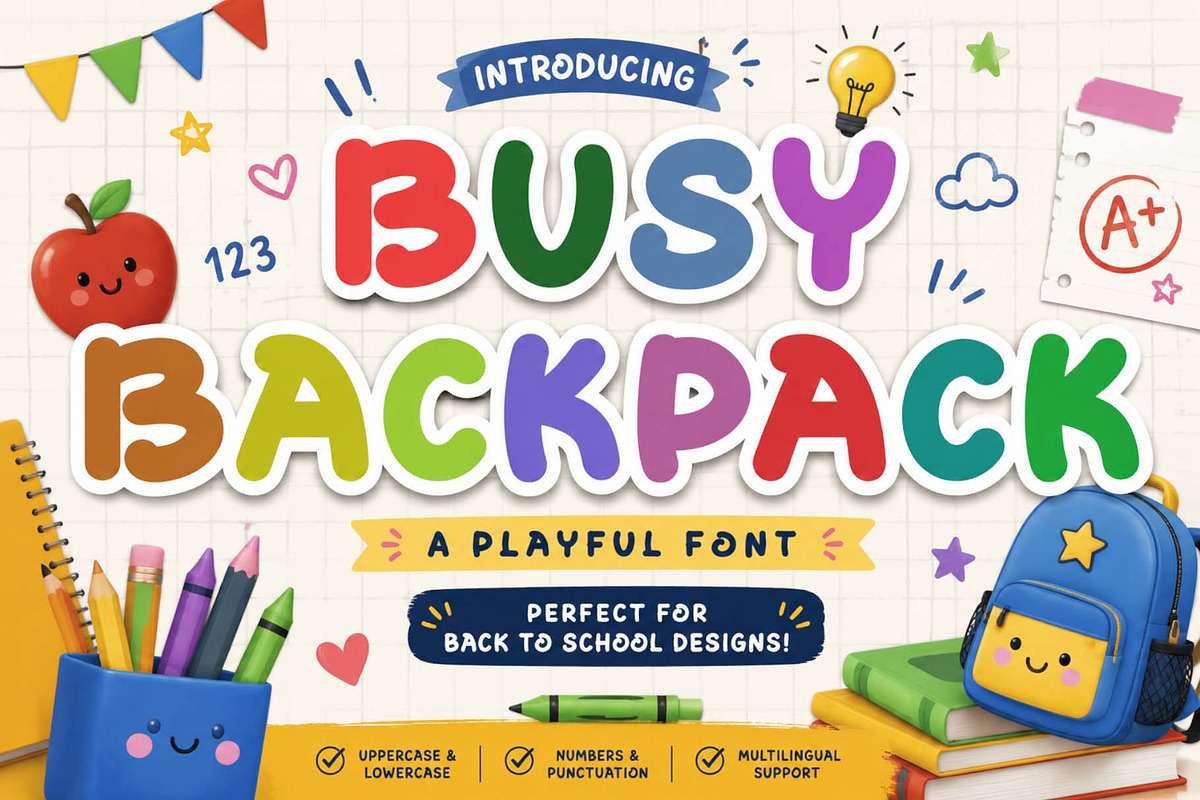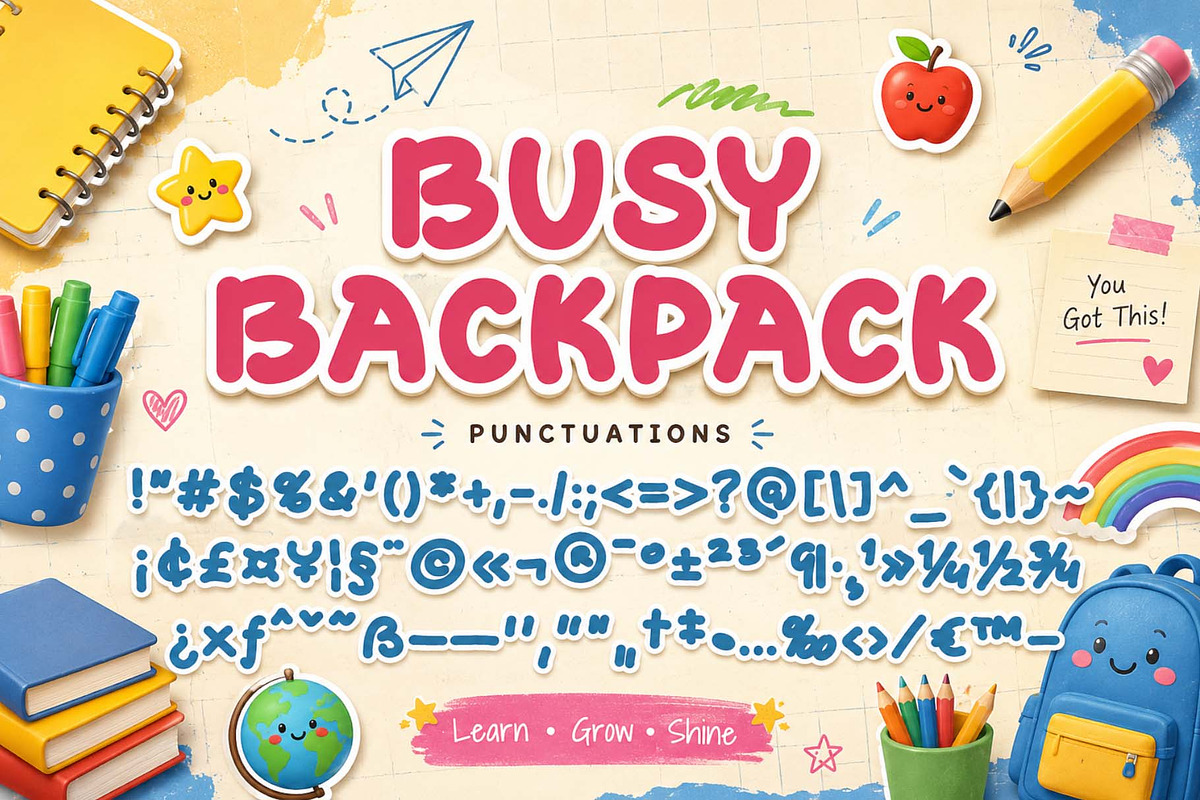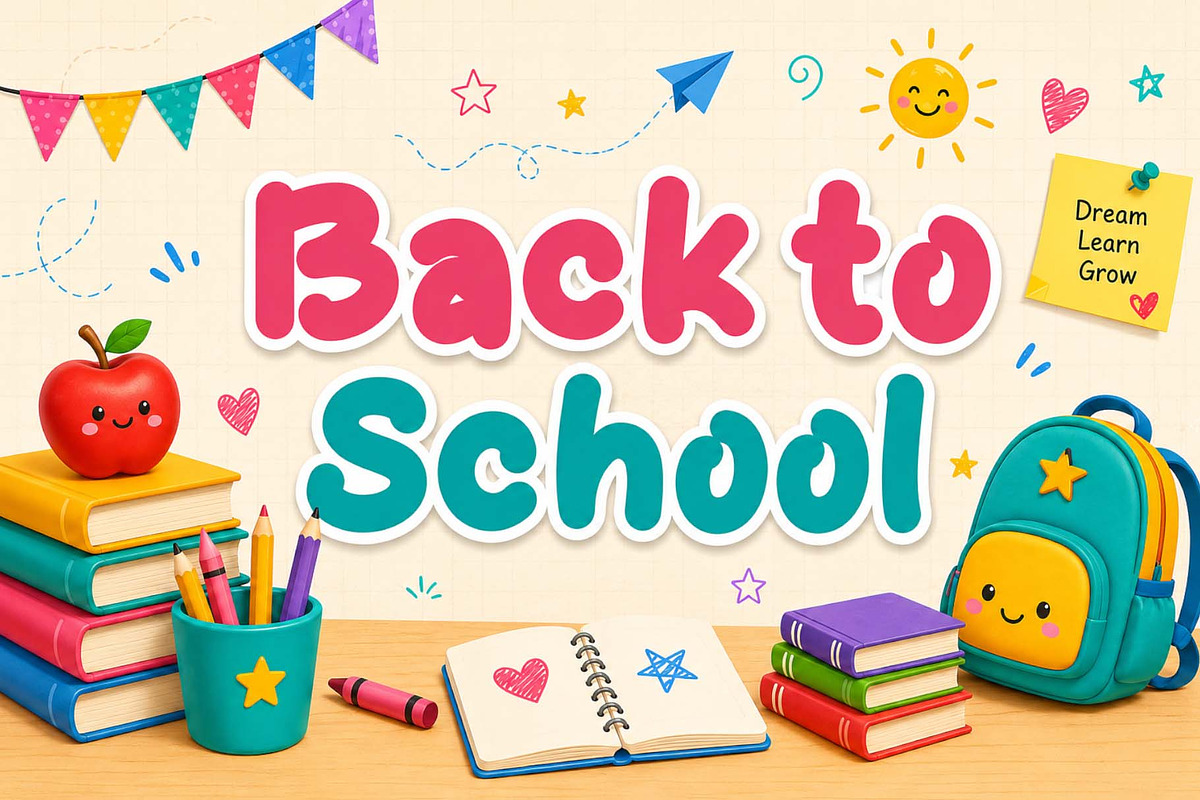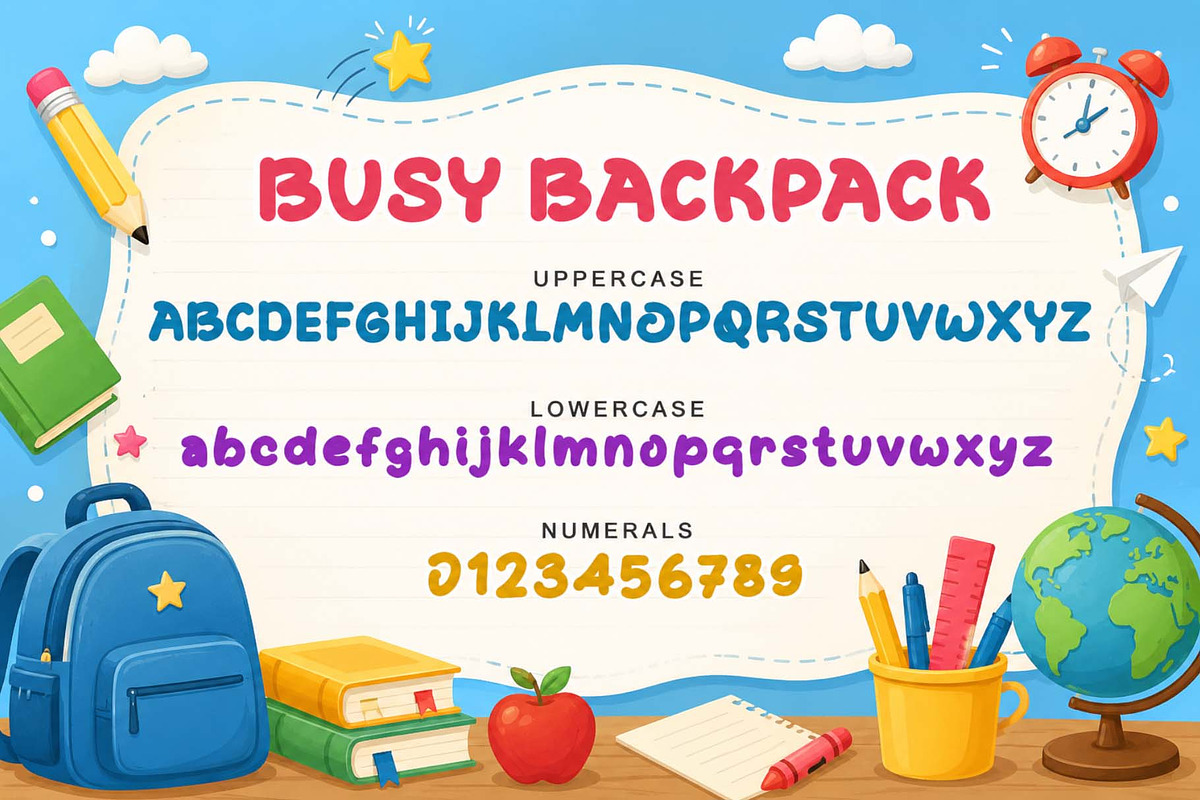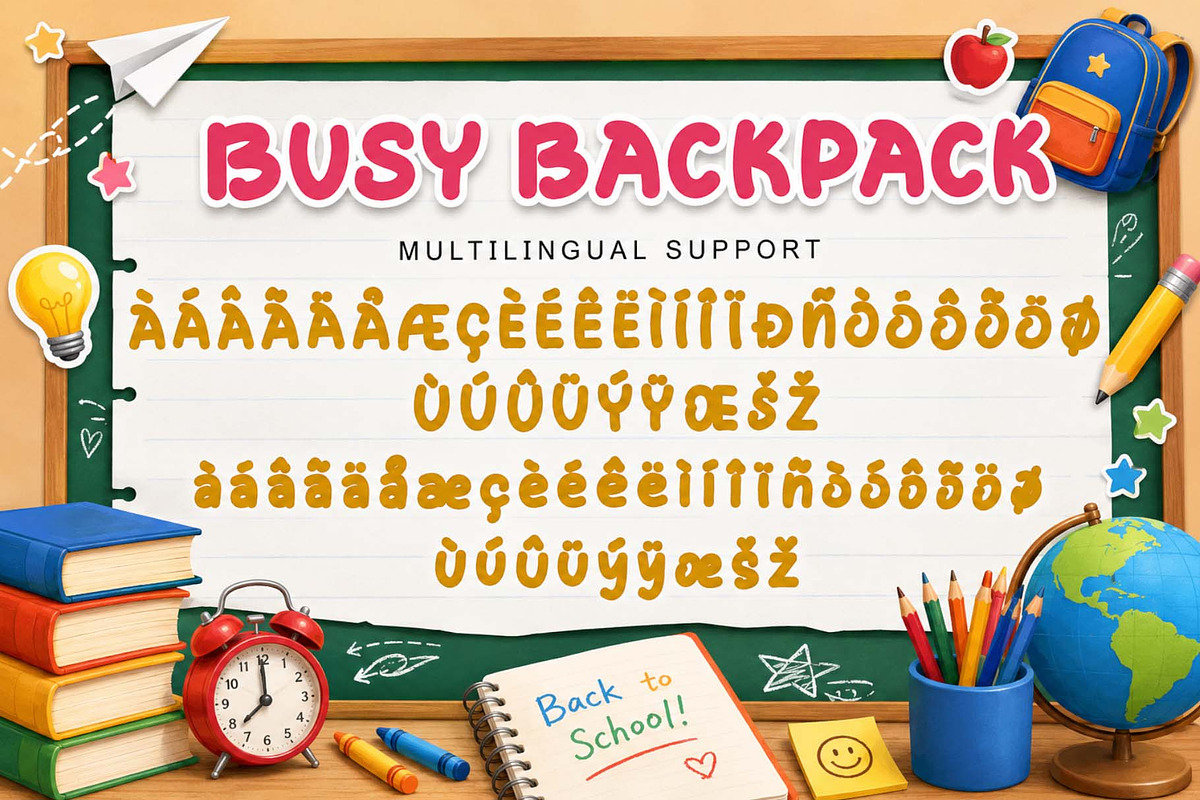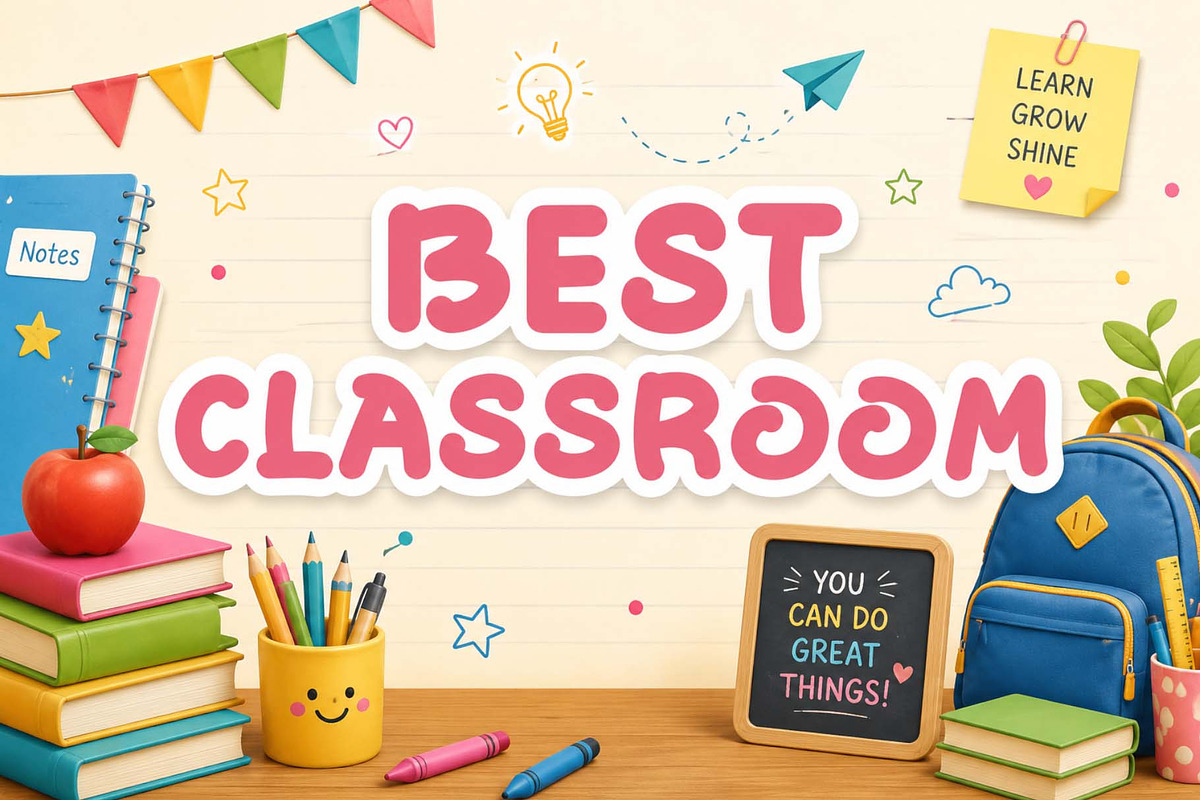
Busy Backpack
Busy Backpack is a cheerful and playful display font designed to bring fun and creativity to any project. Its bold, rounded letters are perfect for back-to-school themes, classroom decor, kids' crafts, and educational designs. It features uppercase and lowercase letters, numbers, punctuation, and multilingual support. Make your designs bright, friendly, and unforgettable with this adorable font that inspires learning and imagination.